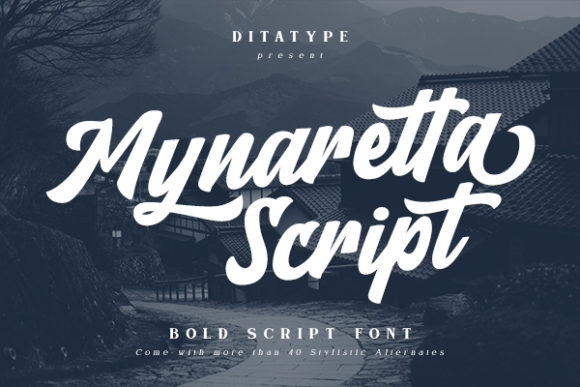
Unleash the captivating charm of Mynaretta, a breathtaking handwritten font that dances across your designs with an artistic flair. Crafted with the delicate strokes of a brush pen, this script font embodies elegance and sophistication, leaving an unforgettable impression wherever it's used.
Immerse yourself in the world of Mynaretta, where creativity knows no bounds. With its varying baseline, smooth lines, and stunning alternates, this font is a symphony of visual delight. Create designs that speak volumes, whether it's wedding invitations that exude romance, thank-you cards that radiate gratitude, or business cards that command attention. Mynaretta's versatility extends to logos, posters, and any project that demands a touch of handwritten grace.
With Mynaretta, you'll find yourself captivated by its refined details. The font's PUA encoding makes accessing all of its glyphs and swashes a breeze, ensuring that you have the creative freedom to express yourself fully. Unleash your imagination and let the Mynaretta font guide you to design masterpieces that resonate with your audience.
Experience the allure of Mynaretta, a font that's more than just a collection of letters. It's an invitation to embark on a journey of creativity, where the boundaries of design dissolve, and your vision takes center stage. Transform your words into works of art, whether it's a heartfelt message, a bold statement, or a timeless story. Mynaretta Font is your gateway to a world where typography meets artistry, where every design becomes a reflection of your unique style.
Seize the opportunity to embrace the magic of Mynaretta, a font that will elevate your designs to new heights. Let its elegant curves and enchanting characters weave a spellbinding narrative that captivates your audience. With Mynaretta, you'll discover a font that's not just a tool, but an extension of your creativity, empowering you to create designs that leave a lasting impact.